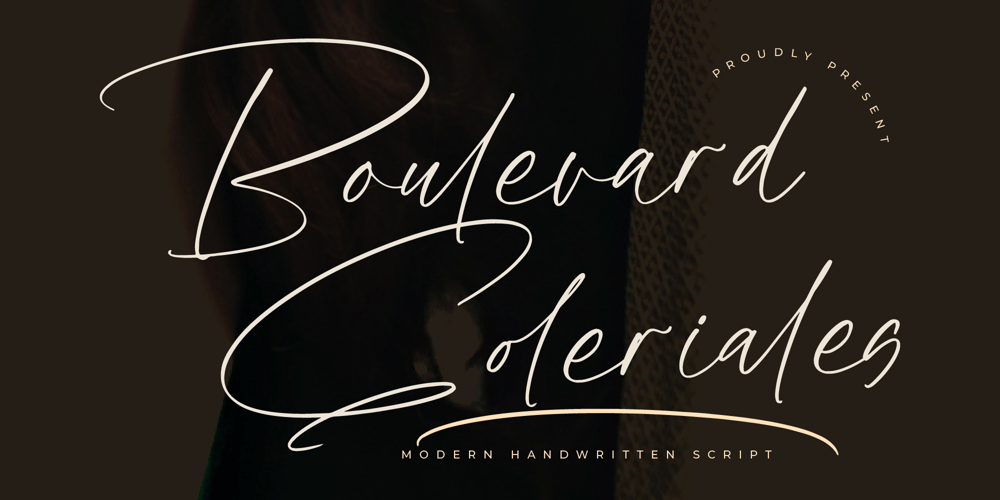
Boulevard Goleriales Font Family was designed by Heru Utama Putra and published by Letterena Studios. Boulevard Goleriales contains 2 styles and family package options. Boulevard Goleriales – Modern Handwritten Script , from Letterena, is a Luxury Script font, suitable for any projects such as: logos, branding projects, homeware designs, product packaging, mugs, quotes, posters, shopping bags, t-shirts, book covers, name card, invitation cards, greeting cards, label, photography, watermark, special events, and all your other luxury and beautiful projects that need a Luxury serif taste.